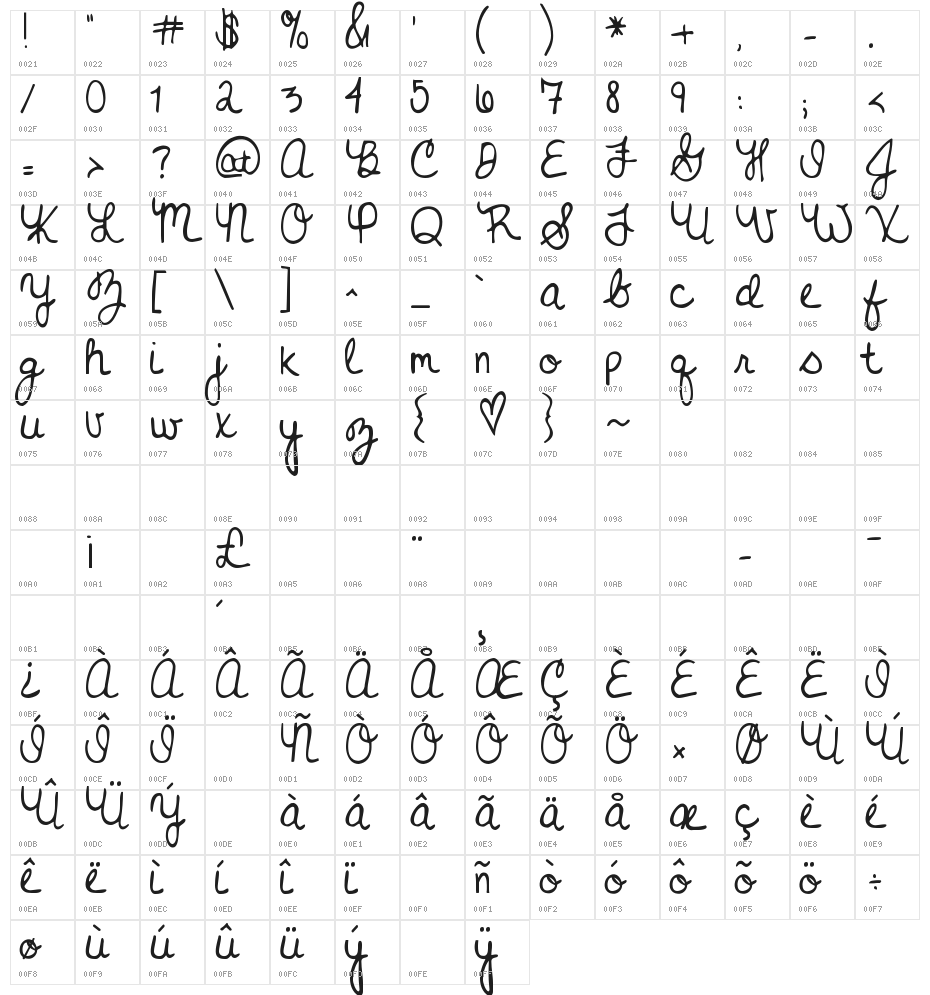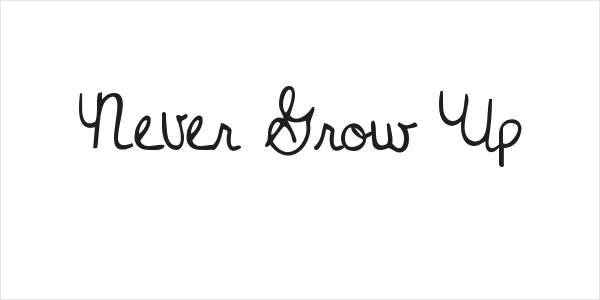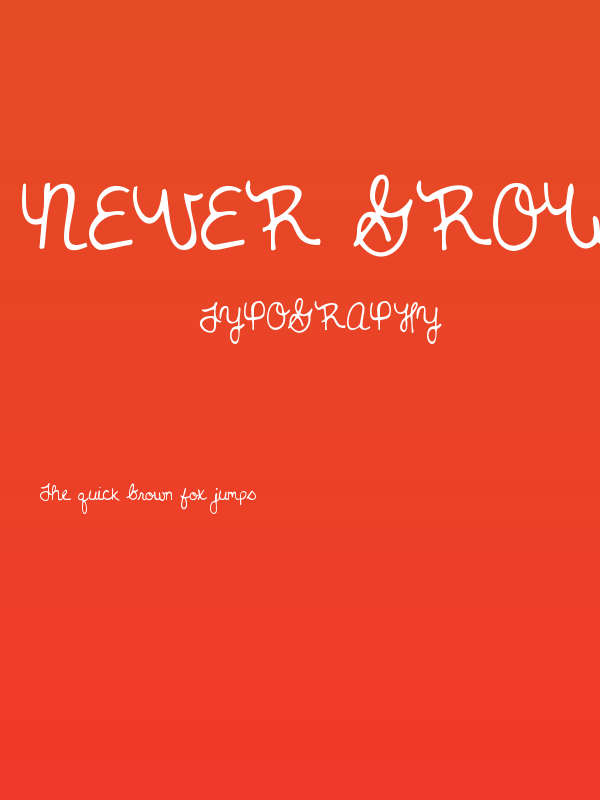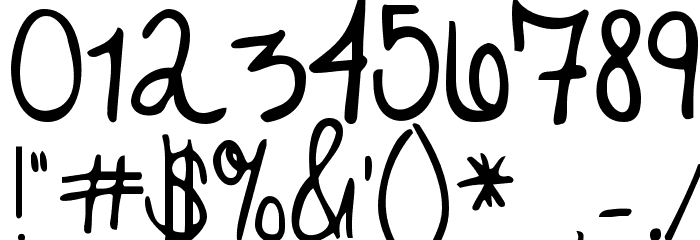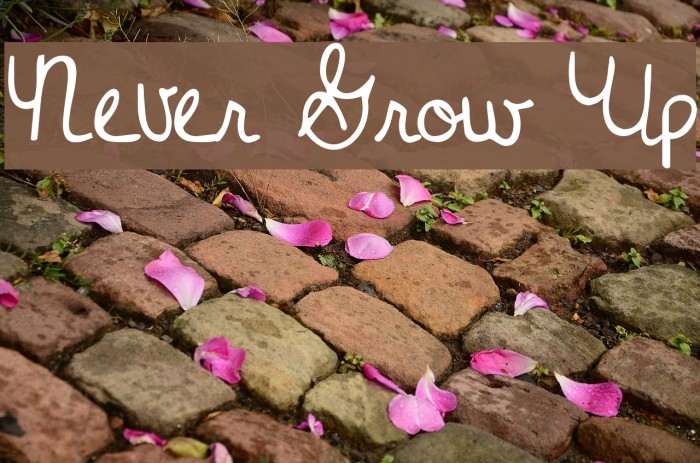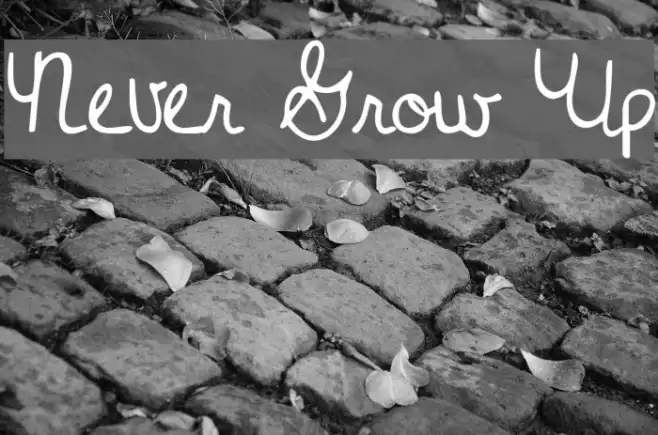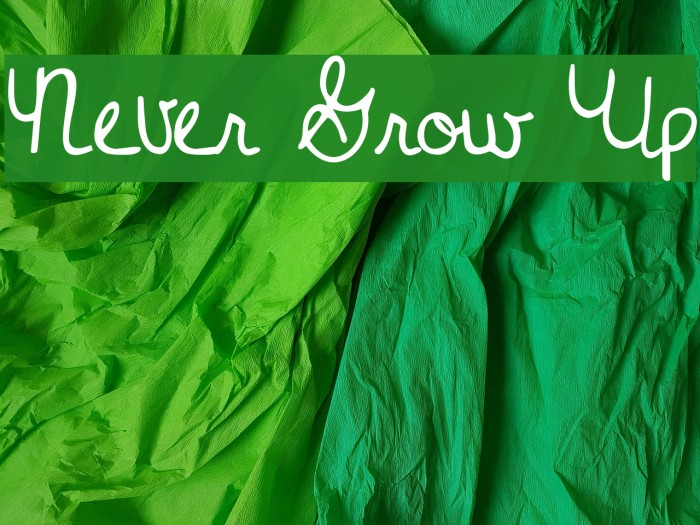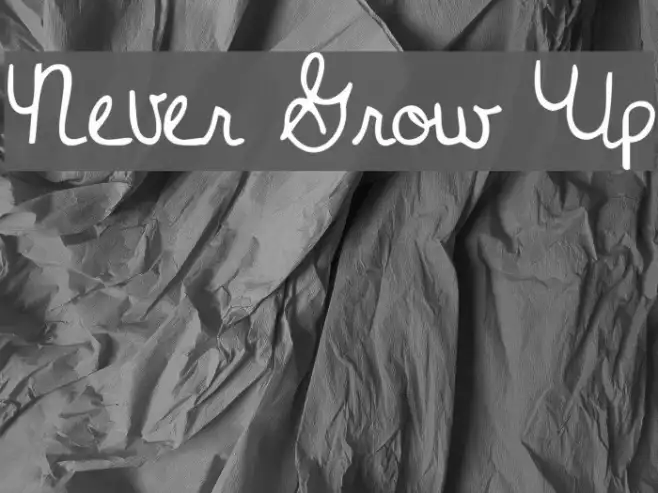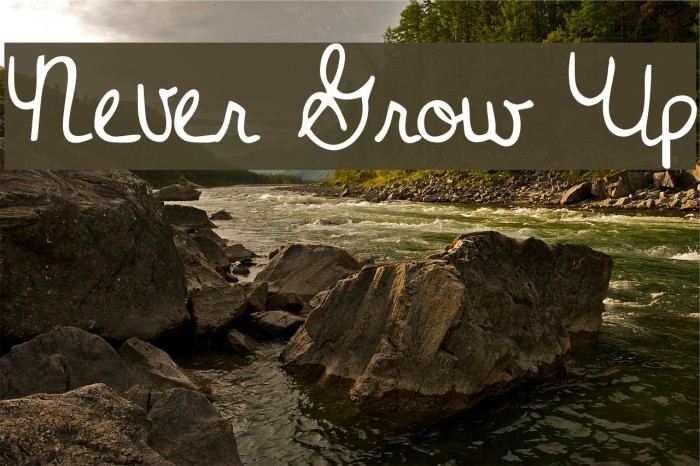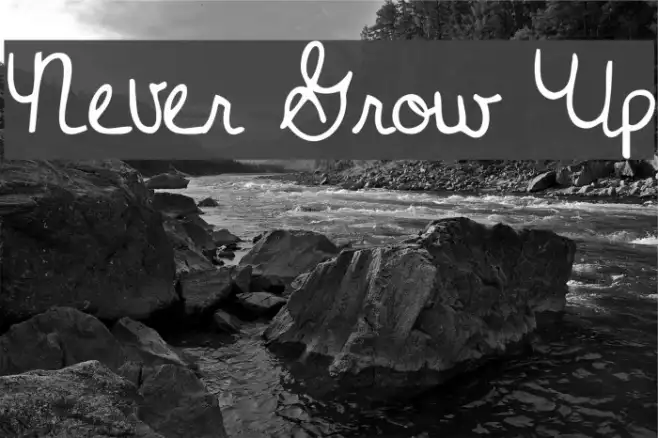
Never Grow Up Font
Never Grow Up Description
This playful and whimsical font features a handwritten style with a youthful and carefree appearance. The letters are characterized by their fluid, looping strokes and varying line thickness, giving it an informal and lively feel. The uppercase and lowercase letters maintain a consistent style, with a slight slant that adds to the dynamic nature of the font. The numbers and special characters are equally expressive, with unique shapes that complement the overall design. This font is perfect for projects that aim to convey a sense of fun and creativity.
| Proposed Projects | Ideal for children's books, playful branding, greeting cards, and creative invitations. |